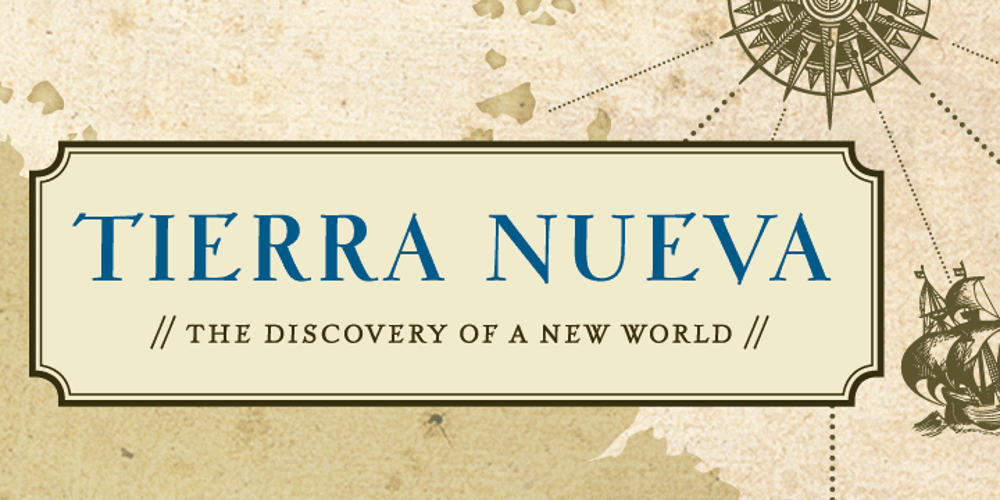
FDI Tierra Nueva Font Family was designed by Sebastian Nagel and published by FDI. FDI Tierra Nueva contains 4 styles and family package options. Four fonts — found on a map of America, created by the spanish cartographer Diego Gutiérrez and the dutch engraver Hieronymus Cock anno 1562. From the start of the digitization by Sebastian Nagel in 2005, Tierra Nueva has gone a long way. On its journey of exploration it has grown to four members of a family (regular, bold, italic and script) with an overall count of almost 3.700 characters for different languages and purposes, extensively featured with useful typographic options. Over six years after the start of the expedition, it shall be launched. Land ahoy!